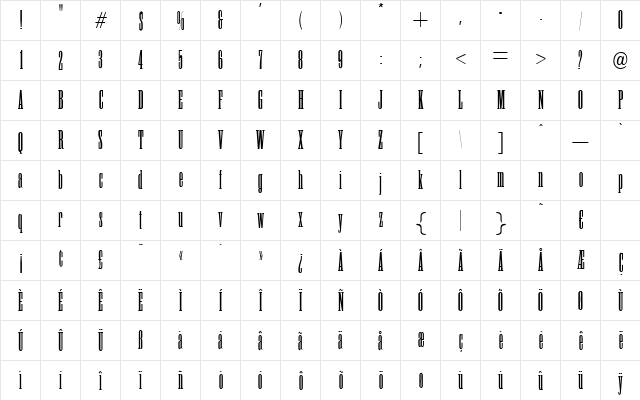
Suffolk Regular
Design Context for Suffolk Typeface
Suffolk offers clean, dependable letterforms without strong stylistic allegiance, making it a practical choice for designers who need flexibility.